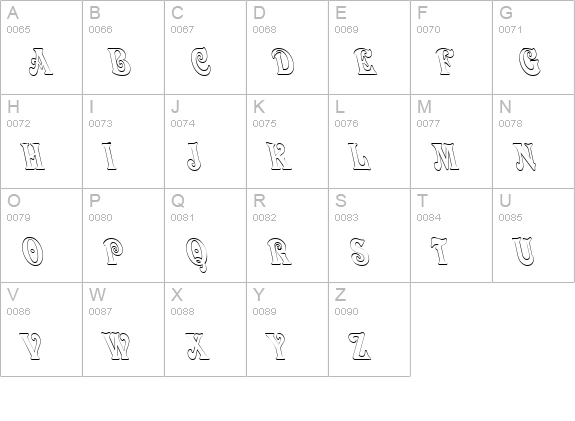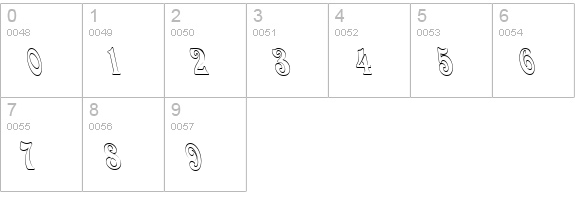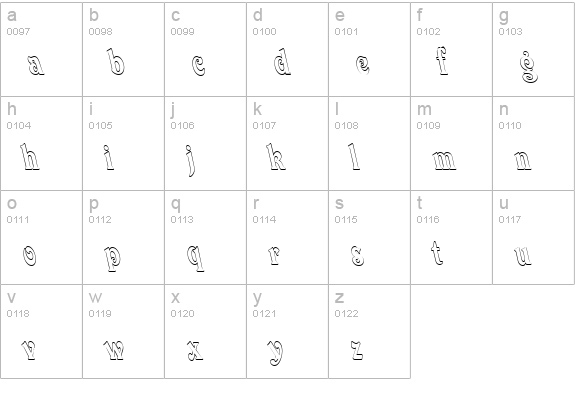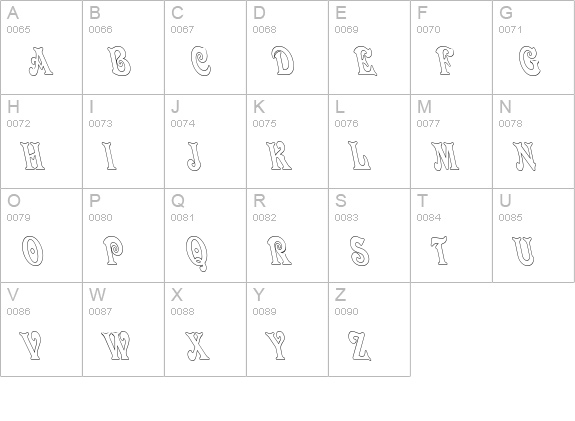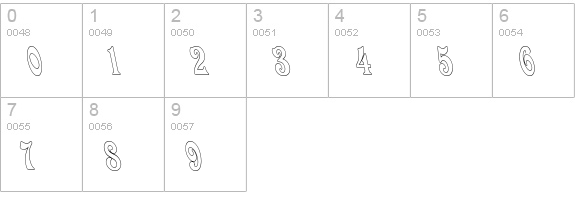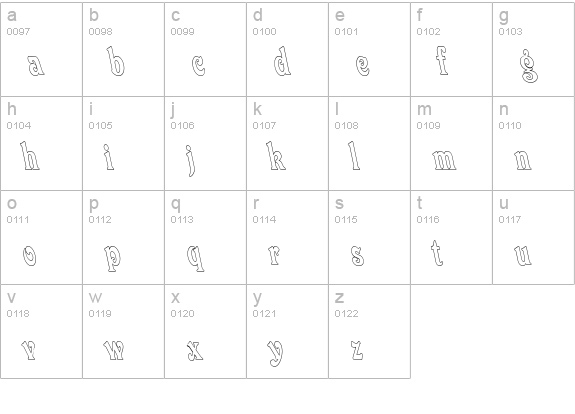
Quardi Bold Italic Font Details
Quardi Bold Italic is a strong, high-contrast, italic variant in the Quardi typeface family \xE2\x80\x94 well suited to headlines, attention-grabbing titles, and strong calls-to-action.
Quardi Bold Italic font is an exquisite and captivating typeface that effortlessly combines strength and elegance. Its bold and italic nature adds a touch of sophistication to any design project, making it an ideal choice for those seeking to make a bold statement. With its sleek lines and distinctive curves, Quardi Bold Italic font commands attention and exudes confidence. Whether used in headlines, logos, or body text, this font stands out and leaves a lasting impression. Its unique style effortlessly captures the essence of modern design, making it perfect for both digital and print media. One of the most remarkable aspects of Quardi Bold Italic font is that it is available for free. You can easily download this font at FontsMarket.com, allowing you to enhance your creative projects without breaking the bank. This accessibility ensures that designers of all levels can enjoy the benefits of this stunning typeface, regardless of their budget. Furthermore, Quardi Bold Italic font offers exceptional versatility. Its bold and italic variations allow for an infinite range of design possibilities. Whether you wish to create a striking headline, emphasize important details, or add a touch of flair to your typography, Quardi Bold Italic font will meet your needs with its flexibility and adaptability. The attention to detail in Quardi Bold Italic font is remarkable. Each letter is meticulously crafted to offer a harmonious balance between legibility and aesthetic appeal. The well-defined serifs and carefully designed curves make this font a delight to read, even in small sizes. Quardi Bold Italic font is a testament to the power of typography in capturing attention and conveying emotions. Its boldness draws the eye, while its italic style adds a touch of elegance and sophistication. This font is a true gem in the world of typography, and its availability as a free download at FontsMarket.com ensures that it can be enjoyed by designers and enthusiasts alike.